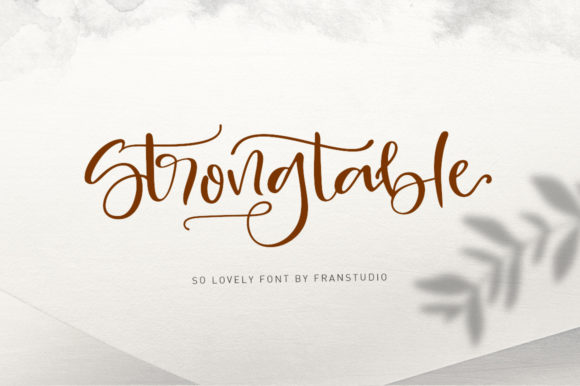
Prepare yourself for a typographic odyssey with Strong Table, the dazzling script font that captivates imaginations and elevates designs to new heights of brilliance.
Journey into the realm of visual allure, where each meticulously crafted glyph of Strong Table dances across your screen, embodying elegance and artistry. Its graceful curves flow like a symphony, evoking a sense of wonder and enchantment.
With Strong Table, your designs will exude a captivating charm, leaving an indelible mark on the hearts of your audience. It's the perfect font for adding a touch of sophistication to logos, branding, invitations, posters, and social media graphics.
Imagine your words dancing across the page, adorned with the exquisite flourishes and sweeping strokes of Strong Table. Your messages will come alive with personality and charisma, captivating your readers and leaving them spellbound.
Strong Table is not just a font; it's an artistic masterpiece, a testament to the boundless creativity of its creator, Franstudio. Every letterform has been meticulously designed to convey a sense of joy and playfulness, injecting a burst of vibrancy into your creative endeavors.